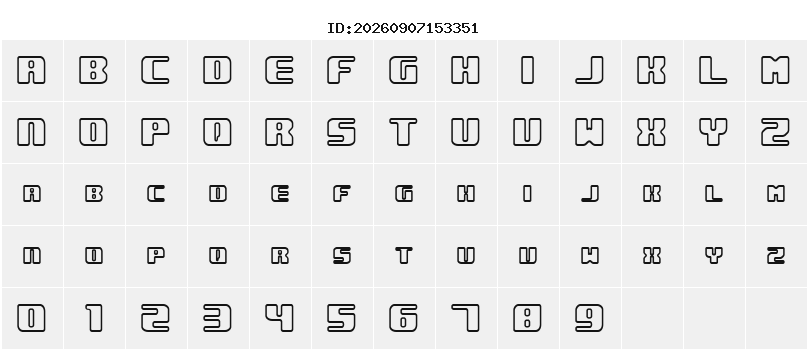
• Font Name: Underwhelmed Outline (BRK)
• Full Font Name: Underwhelmed Outline (BRK)
About Underwhelmed Outline (BRK).ttf
Underwhelmed Outline (BRK).ttf is a modern, elegant sans-serif font designed for ultimate readability and visual harmony. Perfect for branding, headlines, web design, and print materials.